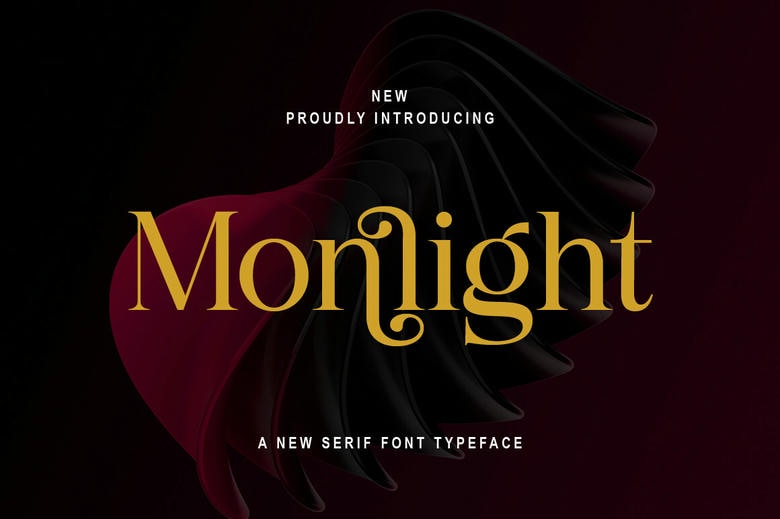
Monlight Font
Monlight is a serif font. The typeface as a whole is strong in conveying order and harmony between letters. Best used as Instagram, poster, web design, magazine, logo, or product. The free version provides all uppercase and lowercase letters and a few special characters too.
Monlight Serif Font